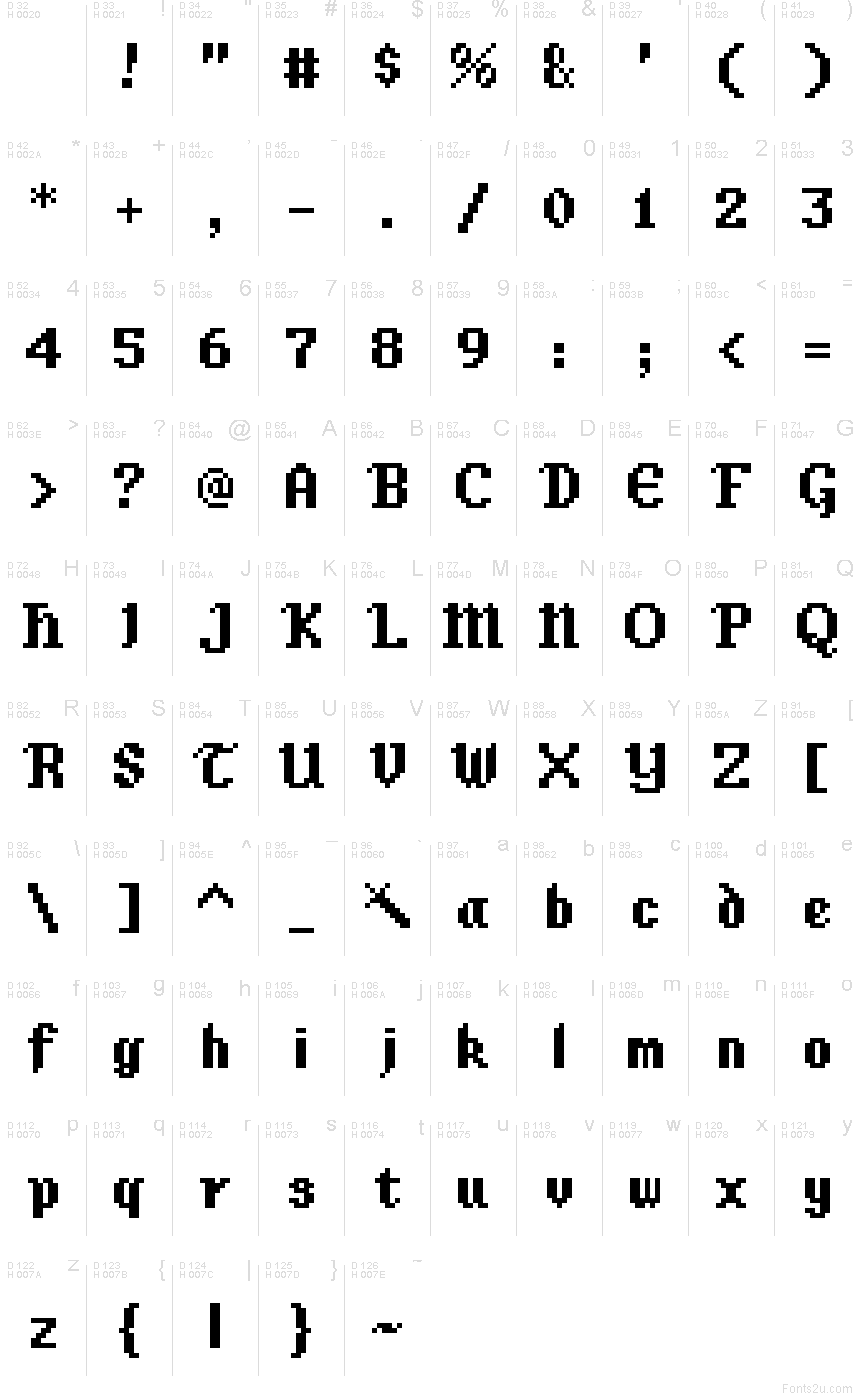
Quill and Antler from MagicBear is a free pixel display font built from hard-edged square units. Its letters resemble early game graphics, with stepped curves, blunt corners, and solid vertical strokes. The forms are compact and emphatic.
An indie game studio or retro technology brand could use it for title screens, merchandise, and event posters, where the low-resolution construction immediately signals digital nostalgia. The stair-step edges can also echo pixel art icons and tiled interface graphics, turning the lettering into part of the same block-built world.
Quill and Antler was built with FontStruct Designer description: <p>An updated and improved version of a font with the same name.</p> Quill and Antler (outdated), which is based on Airmail Fantasy, which is based on Airmail